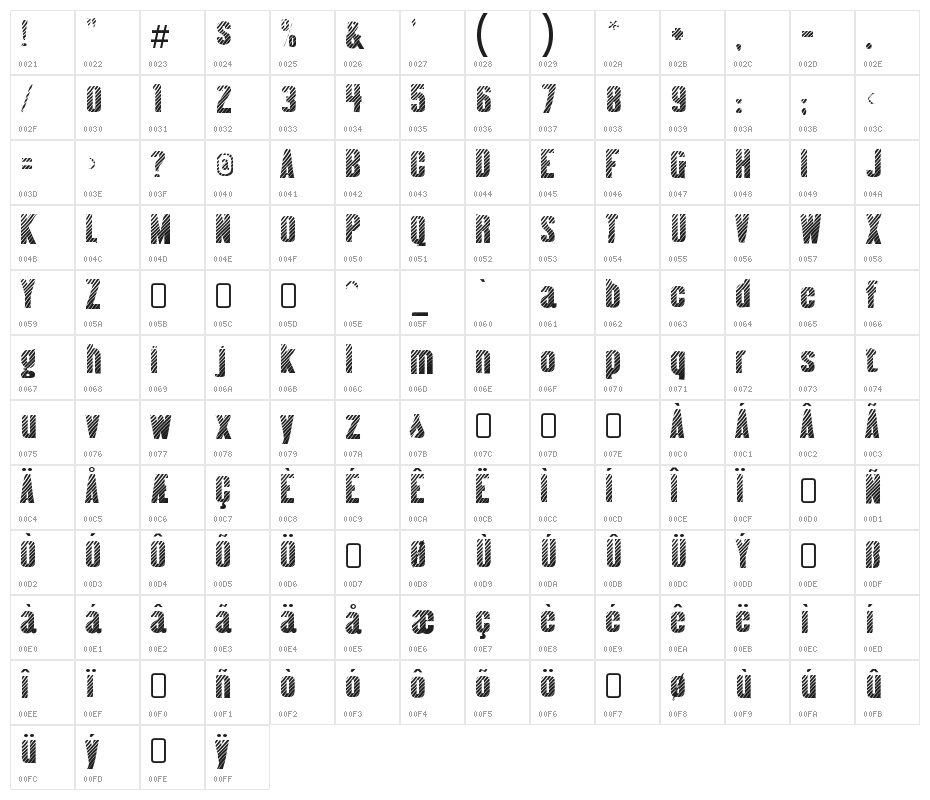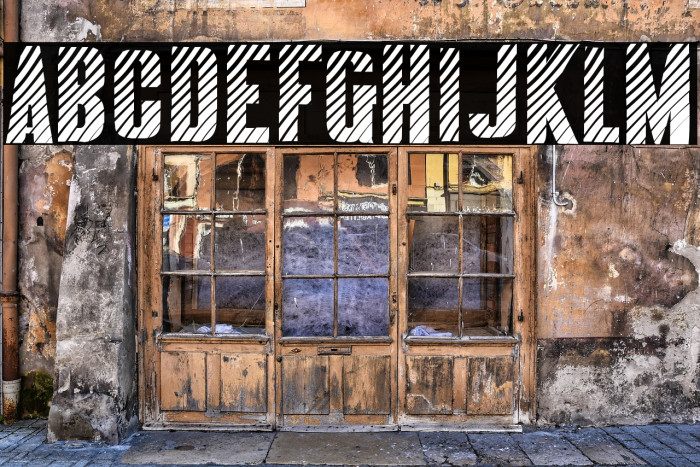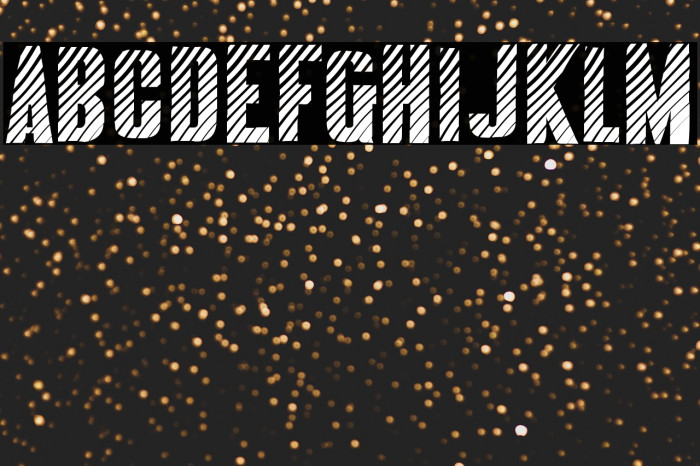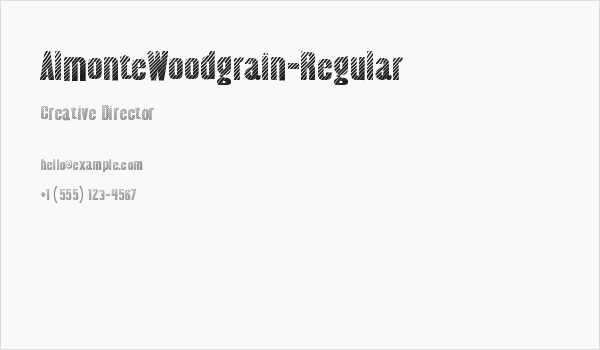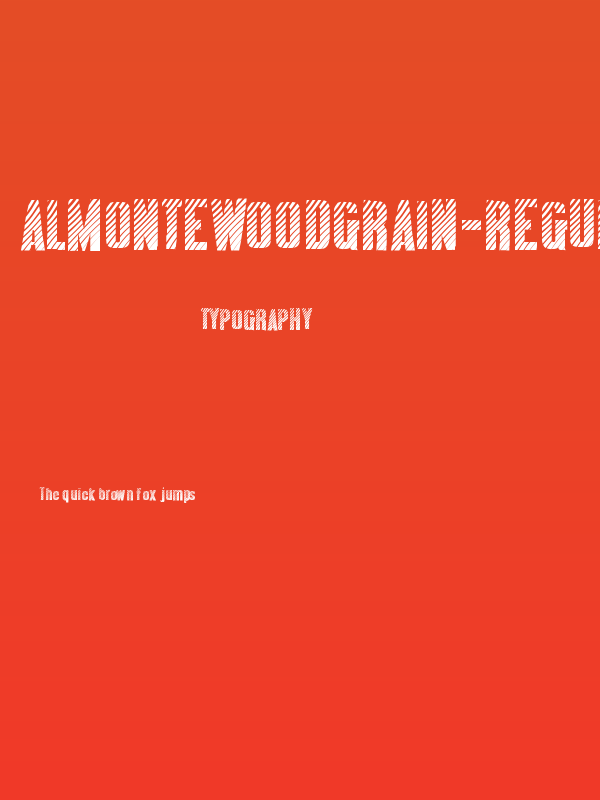
AlmonteWoodgrain-Regular Font
AlmonteWoodgrain-Regular Description
This font features a bold, decorative style with a unique woodgrain texture running diagonally through each character. The uppercase and lowercase letters maintain a consistent width, giving a uniform appearance. The numbers and special characters follow the same textured pattern, enhancing the overall aesthetic. The font's boldness and distinct texture make it stand out, ideal for eye-catching designs. Its decorative nature suggests a playful yet strong presence, suitable for projects that require a touch of creativity and uniqueness.
Proposed ProjectsIdeal for posters, logos, branding, and any design needing a bold, textured look.